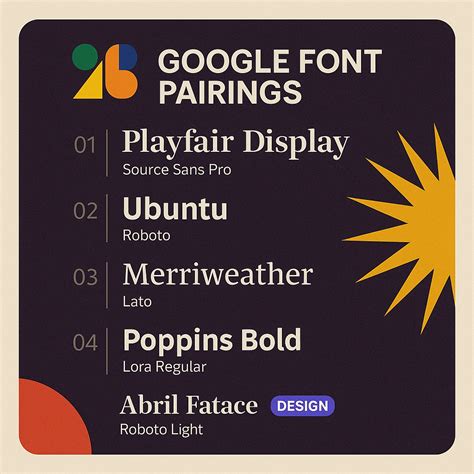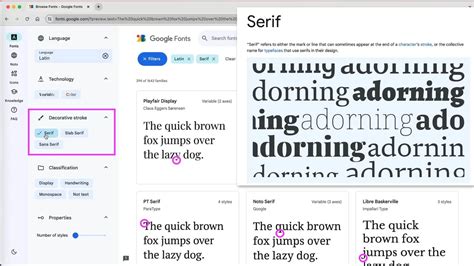
When I first started optimizing landing pages, I wasted hours manually converting web fonts just to get offline access for mockups. If you've ever tried to locally host your typography, you know the frustration of digging through obscure directories. That's exactly why I compiled a master list of 45+ Different Types Of Google Fonts Ttf files for my own design workflow. Having these locally stored files completely changed how I build prototypes, allowing me to bypass CDN delays entirely.
Understanding 45+ Different Types Of Google Fonts Ttf
Here’s the thing about typography: most developers just grab the CDN link and move on. In my experience, relying on external requests introduces render-blocking issues that crush your Core Web Vitals. By downloading the actual TTF files, you gain total control over subsetting, local hosting, and offline rendering. You aren’t at the mercy of a third-party server going down.
That said, TTF files are noticeably uncompressed compared to WOFF2. They are best used for local design software like Figma or Photoshop, rather than direct production deployment. I usually convert my TTFs to WOFF2 once the design is approved for live web delivery.
Categorizing 45+ Different Types Of Google Fonts Ttf
When testing different typefaces, I organize them by their structural intent. It makes pairing headers and body text much faster. Below is a breakdown of the most useful categories I rely on regularly.
| Font Category | Example Font | Best Use Case |
|---|---|---|
| Sans-Serif | Roboto | UI elements and body text |
| Serif | Merriweather | Long-form editorial reading |
| Display | Montserrat | Hero sections and headlines |
| Monospace | Source Code Pro | Code snippets and terminal UI |
Taking control of your typography by curating an offline library gives you a massive edge in both design and performance. Stop relying on external CDNs for every single mockup or local development environment. By managing your own files, you ensure your typography renders exactly as intended, regardless of network conditions.